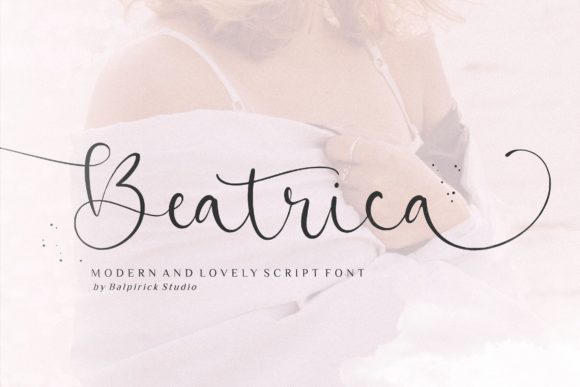
Introducing Beatrica Font: Elevate Your Designs with Elegance
Beatrica is a stylish and delicate font that has been making waves in the design community. Its clean, thin, and smooth vibe makes it an ideal choice for designers looking to add a touch of elegance to their projects. This versatile font is perfect for a wide range of applications, from branding and advertising to packaging and digital media.
One of the standout features of Beatrica is its PUA (Private Use Area) encoding, which allows for easy access to all glyphs and swashes. This means that designers can effortlessly incorporate the font’s beautiful details into their work, creating stunning visual effects that are sure to captivate audiences.
Key Features of Beatrica Font
- Clean and Thin Design: Beatrica’s sleek and slender lines make it perfect for designs that require a touch of sophistication.
- Smooth Vibe: The font’s smooth curves and rounded edges give it a friendly and approachable feel.
- PUA Encoded: Easy access to all glyphs and swashes, allowing for effortless customization.
- Versatile: Suitable for a wide range of applications, from print to digital media.
Design Inspiration with Beatrica
Beatrica is a font that can elevate any design to new heights. Its delicate nature makes it perfect for:
- Branding: Create a lasting impression with a logo or wordmark that exudes elegance and sophistication.
- Advertising: Add a touch of refinement to your ad campaigns, making them more engaging and memorable.
- Packaging: Stand out on store shelves with packaging designs that feature Beatrica’s beautiful lines and curves.
- Digital Media: Enhance your website, social media, or mobile app with a font that is both stylish and readable.
Tips and Tricks for Using Beatrica Font
To get the most out of Beatrica, here are a few tips and tricks to keep in mind:
- Pair with Bold Fonts: Combine Beatrica with a bold font to create a striking contrast that draws attention.
- Experiment with Swashes: Take advantage of Beatrica’s PUA encoding to add custom swashes and glyphs to your design.
- Adjust Font Size: Beatrica looks great at various font sizes, so don’t be afraid to experiment to find the perfect fit for your design.
Beatrica is a stylish and delicate font that is sure to become a staple in any designer’s toolkit. Its clean, thin, and smooth vibe makes it perfect for a wide range of applications, from branding and advertising to packaging and digital media. With its PUA encoding and versatile design, Beatrica is the perfect choice for designers looking to add a touch of elegance to their work.